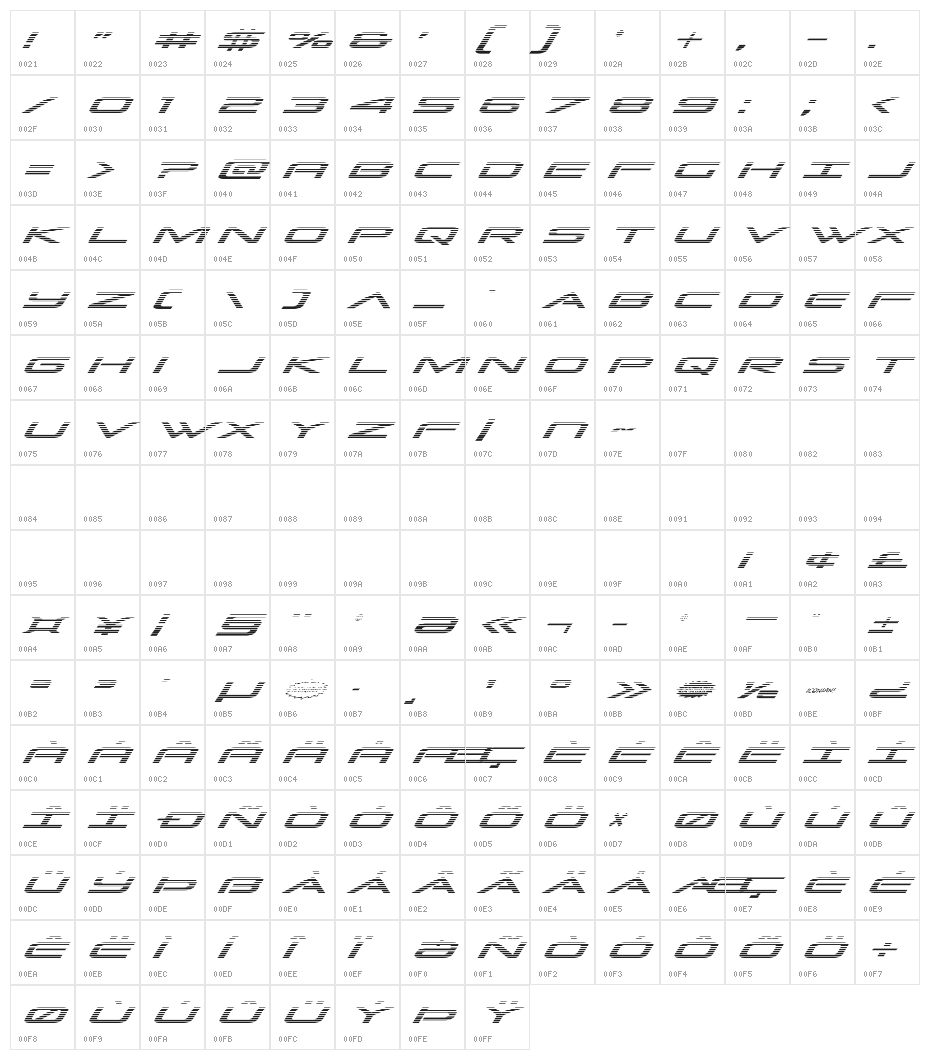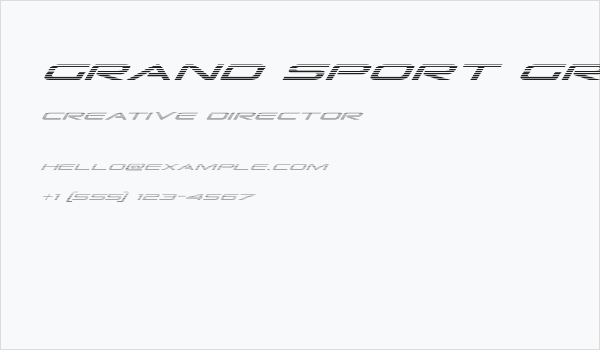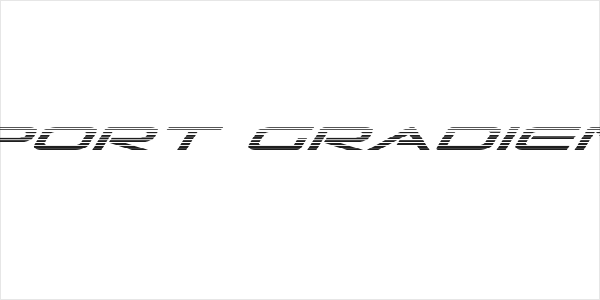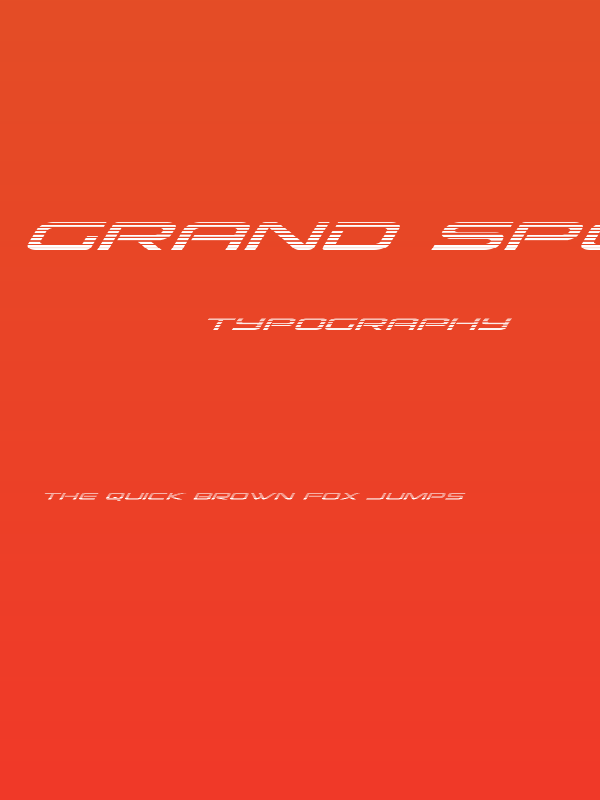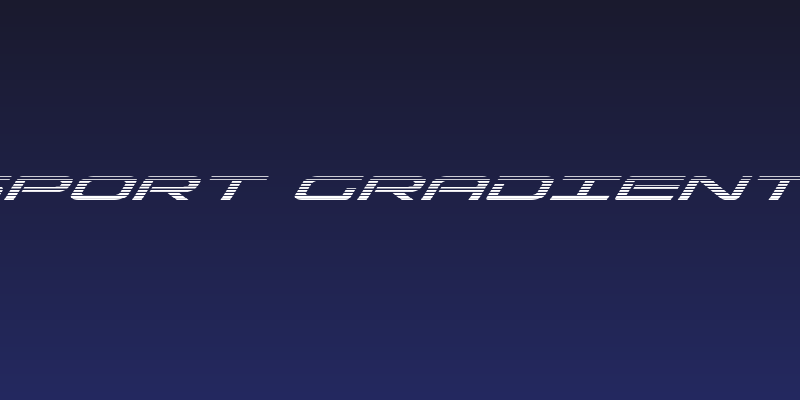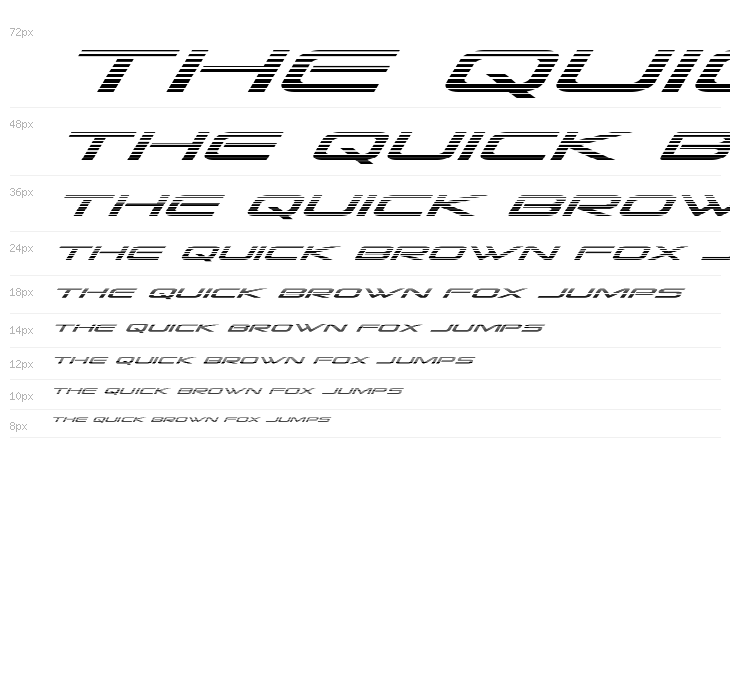
Grand Sport Gradient Italic Font
Grand Sport Gradient Italic Description
This font features a dynamic and sporty design, characterized by its italicized and gradient-styled letters. The characters are sleek and modern, with a sense of motion conveyed through the slanted lines and gradient effect. The uppercase and lowercase letters maintain a consistent style, enhancing readability while adding a unique flair. The numerals and special characters follow the same design principles, ensuring a cohesive look across all text elements. This font is ideal for projects that require a bold and energetic aesthetic, such as sports branding, automotive advertisements, or dynamic event posters.
| Proposed Projects | Ideal for sports branding, automotive advertisements, dynamic event posters, and modern digital designs. |